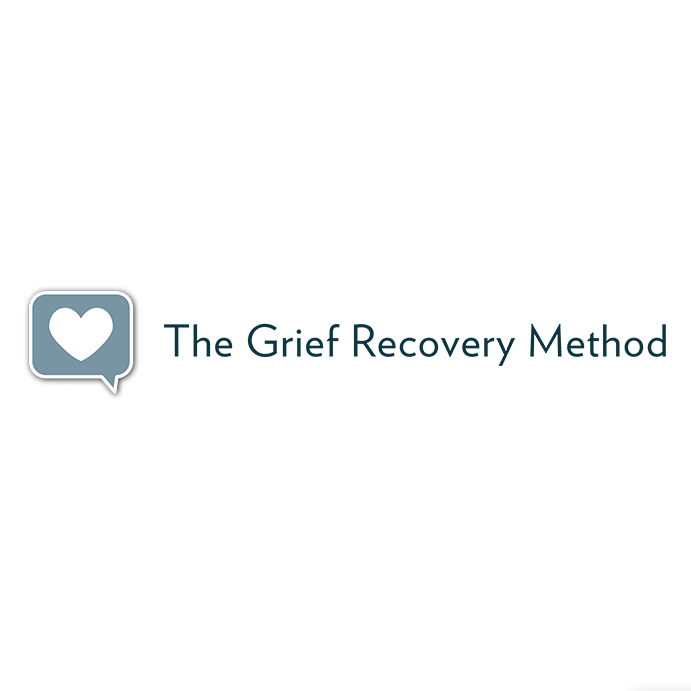
The Grief Recovery Method Font
Fonts in UseThe Grief Recovery Institute is an organization that provides training and certification for individuals interested in helping others recover from grief. Their program focuses on a specific approach to grief counseling that emphasizes action-oriented steps toward healing.
Verlag Book, a geometric sans-serif typeface created by Jonathan Hoefler and Tobias Frere-Jones for the Guggenheim Museum, is used in the organization's logo.